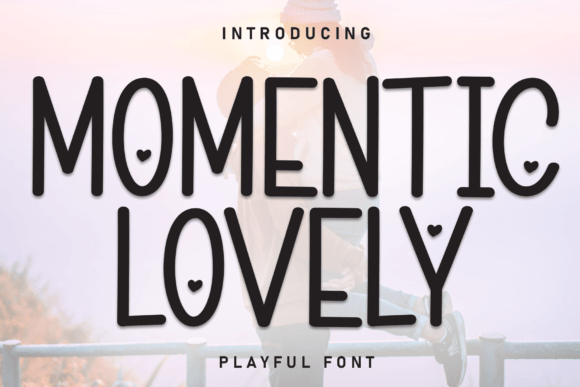
Momentic Lovely Font: Elevate Your Designs with a Timeless Handwritten Style
In the world of typography, a good font can make all the difference in creating a lasting impression. If you’re looking for a font that exudes elegance, sophistication, and a touch of whimsy, look no further than Momentic Lovely. This beautiful handwritten font is perfect for designers, artists, and crafty enthusiasts who want to add a personal touch to their creations. In this article, we’ll explore the features and benefits of Momentic Lovely, and how it can elevate your designs to the next level.
What Makes Momentic Lovely So Special?
Momentic Lovely is a lovely and timeless handwritten font that boasts a unique and beautiful touch. Every letter has been carefully crafted to ensure that each one has its own distinct character, making it perfect for creating eye-catching logos, branding, and quotes. The font’s elegant and flowing lines give it a sophisticated feel, while its whimsical touches add a playful edge.
- Unique and Beautiful Touch: Each letter in Momentic Lovely has been designed with a unique and beautiful touch, making it perfect for creating one-of-a-kind designs.
- Timeless Handwritten Style: The font’s handwritten style is timeless and versatile, making it suitable for a wide range of design projects.
- Elegant and Flowing Lines: The font’s elegant and flowing lines give it a sophisticated feel, perfect for creating high-end designs.
- Whimsical Touches: The font’s whimsical touches add a playful edge, making it perfect for designs that require a bit of personality.
How to Use Momentic Lovely in Your Designs
Momentic Lovely is a versatile font that can be used in a wide range of design projects. Here are some ideas to get you started:
- Logos and Branding: Use Momentic Lovely to create eye-catching logos and branding materials that will help your business stand out.
- Quotes and Posters: The font’s elegant and flowing lines make it perfect for creating beautiful quotes and posters.
- Wedding and Event Stationery: Momentic Lovely is a popular choice for wedding and event stationery, adding a touch of elegance and sophistication to your designs.
- Social Media Graphics: Use the font to create stunning social media graphics that will help you connect with your audience.
The Benefits of Using Momentic Lovely
So why choose Momentic Lovely over other fonts? Here are just a few benefits of using this beautiful handwritten font:
- Stand Out from the Crowd: Momentic Lovely is a unique and distinctive font that will help your designs stand out from the crowd.
- Elegance and Sophistication: The font’s elegant and flowing lines give it a sophisticated feel, perfect for high-end designs.
- Easy to Read: Despite its elegant style, Momentic Lovely is easy to read, making it perfect for body text and captions.
- Versatile: The font is versatile and can be used in a wide range of design projects, from logos and branding to quotes and posters.
Tips for Using Momentic Lovely Effectively
Here are a few tips for using Momentic Lovely effectively in your designs:
- Use it Sparingly: While Momentic Lovely is a beautiful font, it can be overwhelming if used too much. Use it sparingly to create emphasis and add visual interest.
- Pair it with Other Fonts: Momentic Lovely pairs well with other fonts, so don’t be afraid to experiment with different combinations.
- Experiment with Colors: The font looks great in a range of colors, so experiment with different hues and shades to find the perfect look for your design.
- Pay Attention to Kerning: As with any font, pay attention to kerning to ensure that your text looks professional and polished.
In conclusion, Momentic Lovely is a beautiful and versatile handwritten font that is perfect for designers, artists, and crafty enthusiasts. Its unique and beautiful touch, elegant and flowing lines, and whimsical touches make it a great choice for creating eye-catching logos, branding, and quotes. With its timeless style and ease of use, Momentic Lovely is sure to become a favorite in your design arsenal.